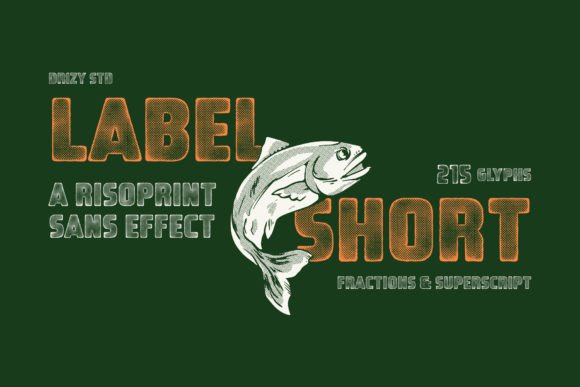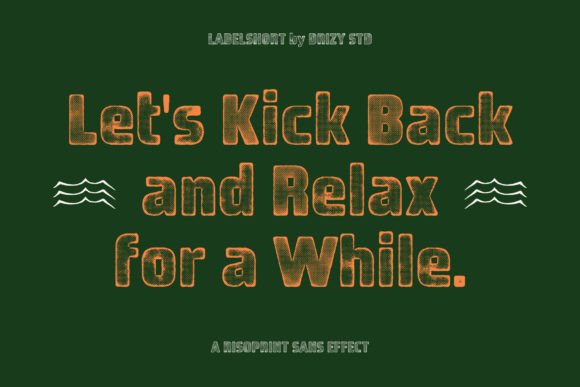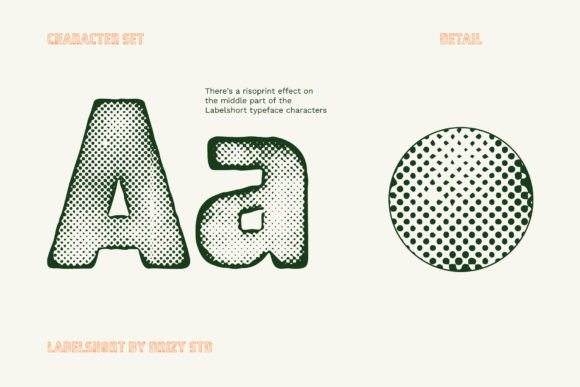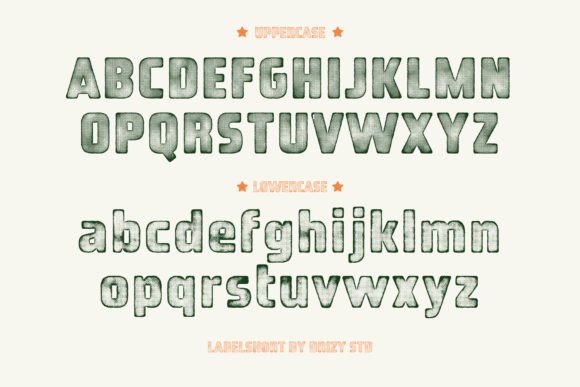
Labelshort Font: Retro Texture Typography for Authentic DIY Design
About the Labelshort Font
Let us introduce you to Labelshort Font, where timeless design meets modern craftsmanship. Labelshort is a distinctive typeface that combines the vintage charm of rubber stamp imprints with the modern clarity of sans-serif fonts. Its textured appearance mimics the unevenness and character of traditional rubber stamping, lending an authentic, handcrafted feel to any design. With its clean lines and slightly worn edges, this font evokes a sense of nostalgia while maintaining readability and versatility. Labelshort adds a touch of retro flair and individuality to your creations.
Labelshort excels in headline applications, short text blocks on packaging, and branding elements where its unique texture adds visual interest. Its retro charm works well for logos, posters, and short-form marketing materials aiming for a vintage or handcrafted aesthetic. However, its textured nature makes it less suitable for body text or lengthy paragraphs, compromising readability. Avoid using it in UI contexts requiring high legibility.
Pair Labelshort with clean sans-serif fonts like Montserrat or Open Sans for a balanced contrast. For a more playful feel, consider pairing it with a rounded sans-serif such as Bebas Neue. A serif like Playfair Display can add a touch of classic elegance, while a script font like Great Vibes offers a more whimsical counterpoint.
The overall personality of Labelshort is best described as retro-modern and approachable; it’s bold yet friendly, lending itself well to brands that value authenticity and a slightly nostalgic touch without sacrificing clarity.